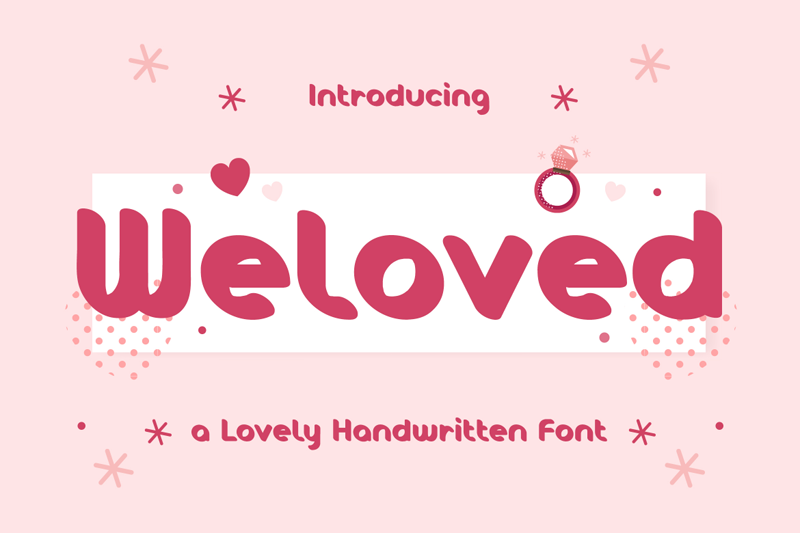
Weloved is a bold and lovely display font with a romantic theme. Simple and easy to use, this font will be very beautiful if you mix it with your various craft designs. Full Version Download Here : https://typefactory.co/product/weloved-romantic-display-font/ https://www.creativefabrica.com/product/weloved/ |